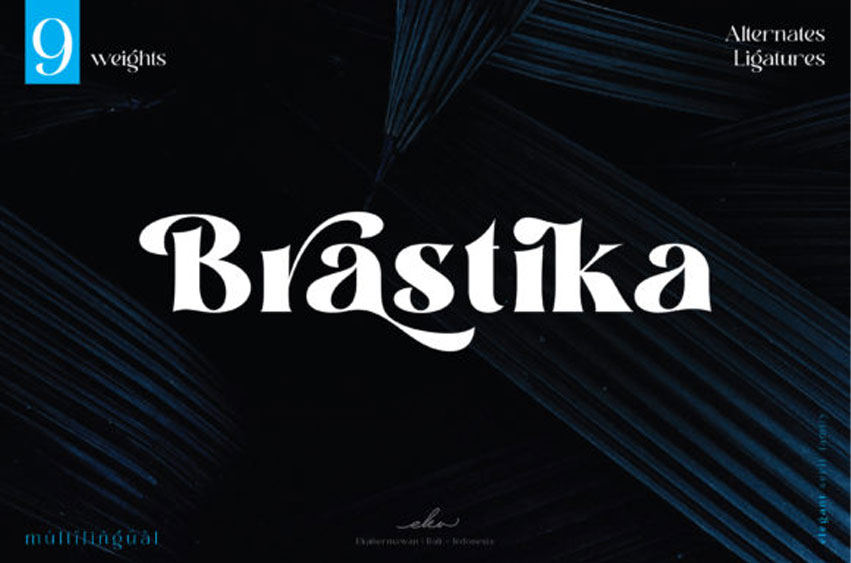
Brastika Font is a thick lettered and stylish display font.
Expertly designed to make your creation look out of this world, this font will look gorgeous on a variety of ideas.